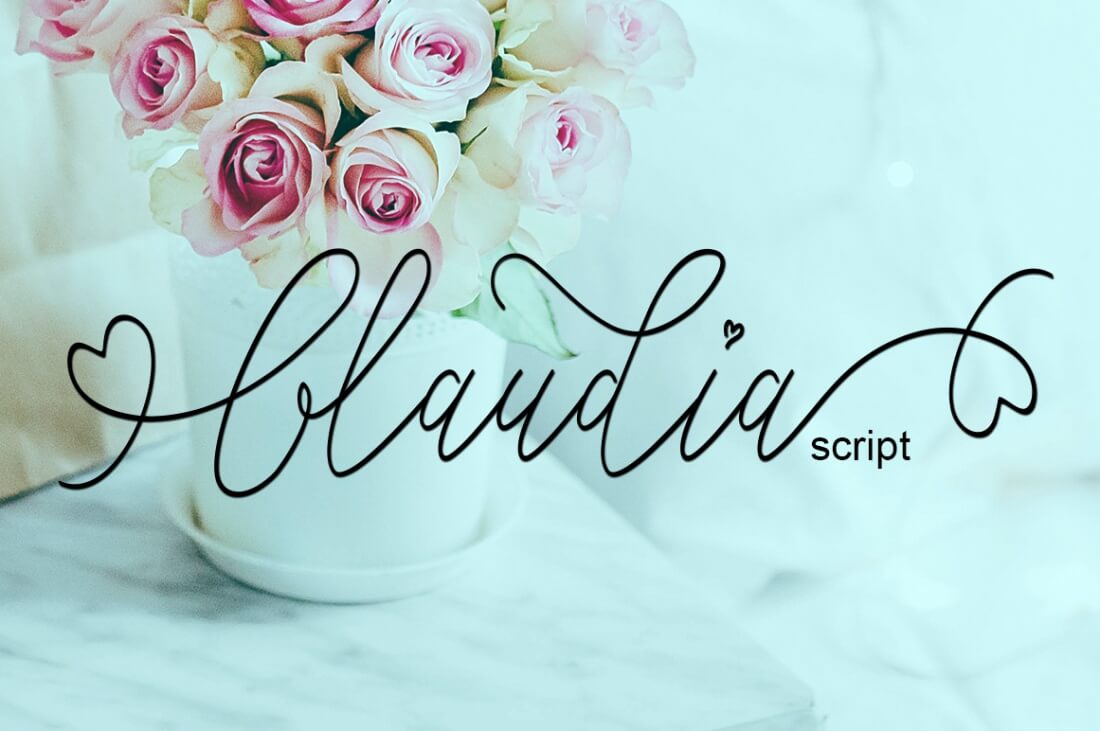
Give your typeface toolbox a sophisticated lift with this elegant collection of 25+ script and display fonts. With OpenType features including alternates, ligatures, and swashes, you can put together just about any project from wedding invitations to quotes to prints. With an extended license and multi-language support, the flexibility is there for the taking.
Highlights:
• 25+ elegant typefaces;
• Loads of OpenType features including swashes, ligatures, alternative styles, numerators, superscripts, subscripts, and more;